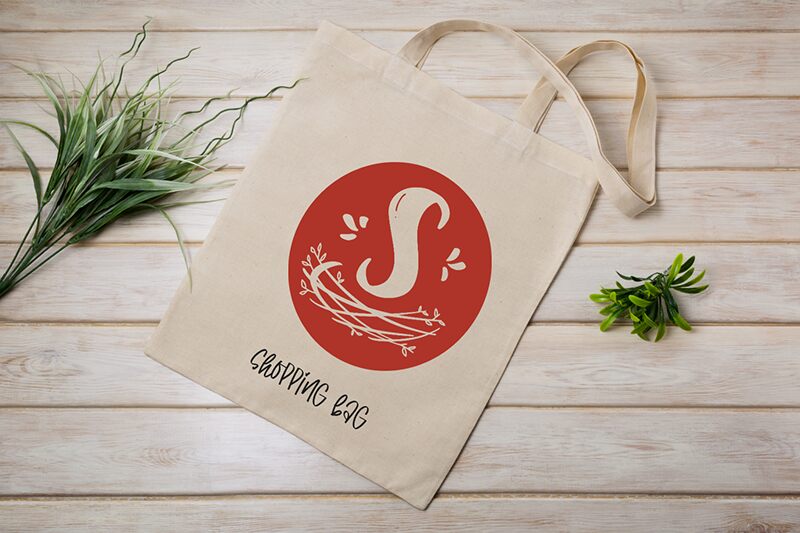
Nest Monogram is a decorative display font created by Abo Daniel. It features an eye-catching, interlocked design that is perfect for creating bold, statement logos and titles. Use Nest Monogram to make your projects stand out - it's great for making signs, posters, apparel prints and creative illustrations unique.